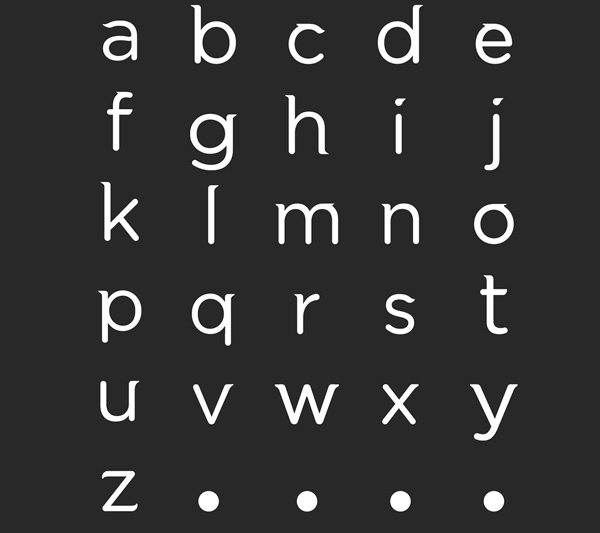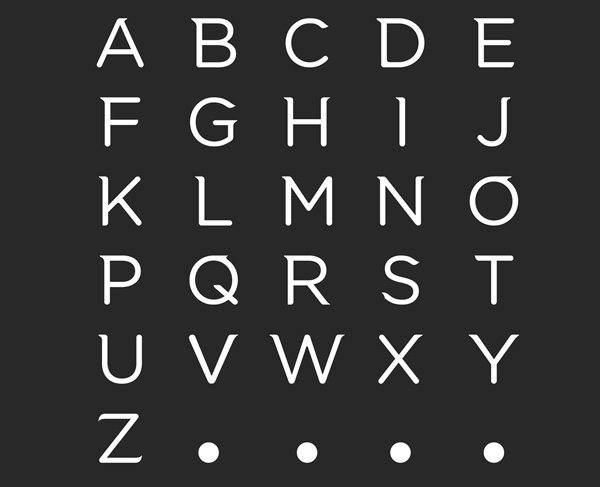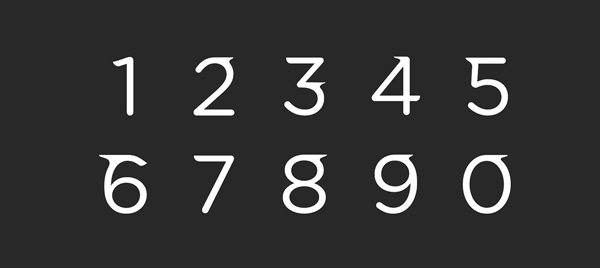
luctan font
Free Font Of The Day #208 – Luctan Font
Luctan Font
Typeface inspired by Texas Longhorn Bulls. Is Free whether for your web design projects or graphic design projects. Designed by Roy Wong.